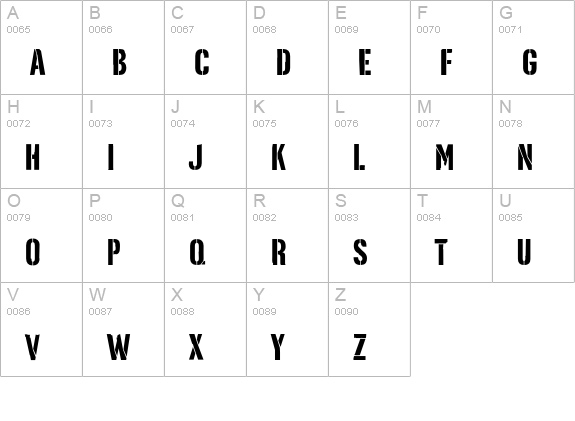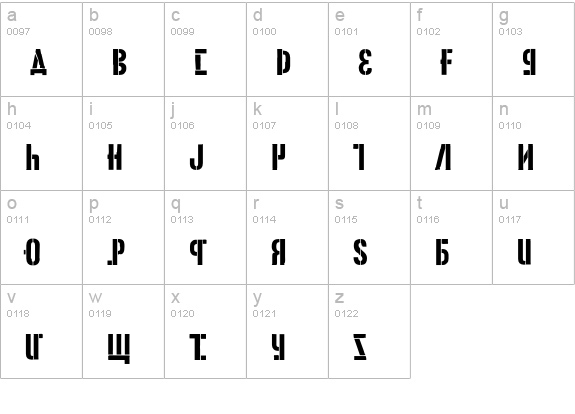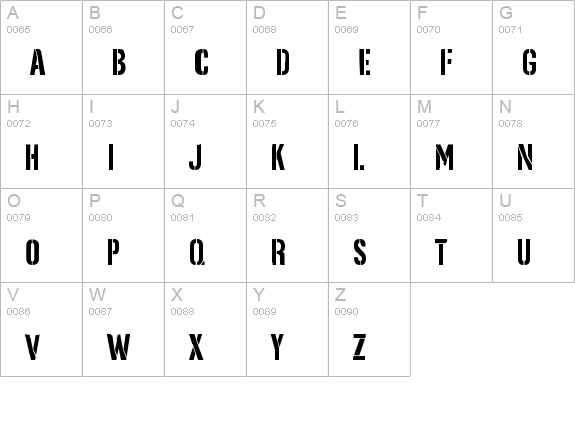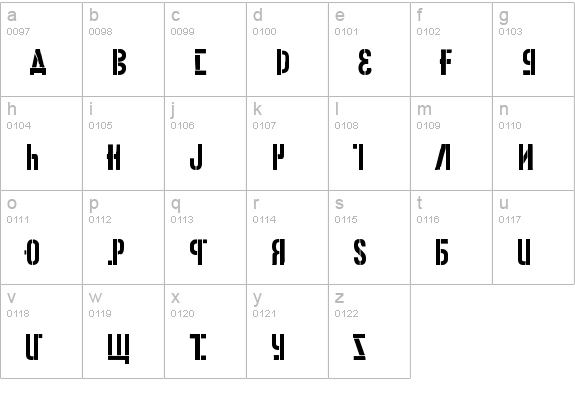
Gazz-Stencil Font Details
Gazz-Stencil font is a bold and modern typeface that exudes strength and sophistication. With its clean lines and distinct stencil design, this font is perfect for making a statement in various design projects. Whether you're creating posters, logos, or headlines, Gazz-Stencil font will add a touch of edgy style to your work. Not only does Gazz-Stencil font offer a unique and eye-catching look, but it is also available for free download at FontsMarket.com. This means you can easily access this striking font and incorporate it into your designs without any cost. Don't miss out on the opportunity to enhance your projects with the striking Gazz-Stencil font, now freely available for download.